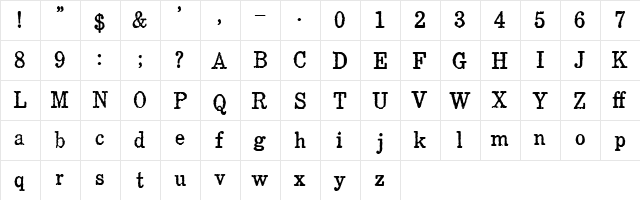
Langtry WF Regular
| Designer | Walden Font Co. |
Design Context for Langtry WF Typeface
Langtry WF offers clean, dependable letterforms without strong stylistic allegiance, making it a practical choice for designers who need flexibility.